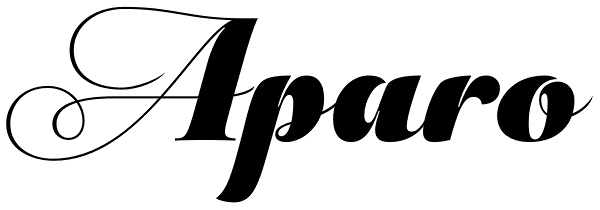
Aparo
Typography or Calligraphy. Unconnected or Connected. For us, at DSType Foundry, that was the main question. With Aparo, we tried to bring the best of the two worlds into a single, yet complex, typeface. Aparo appears to be a very simple bold italic...